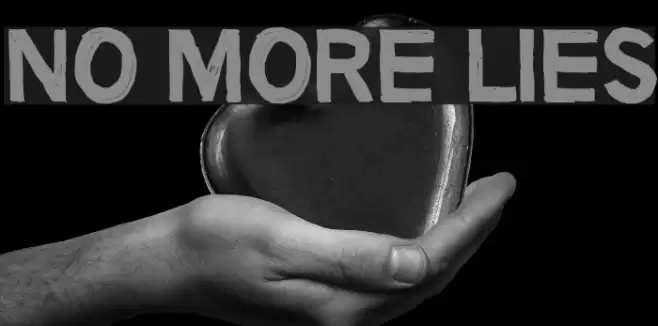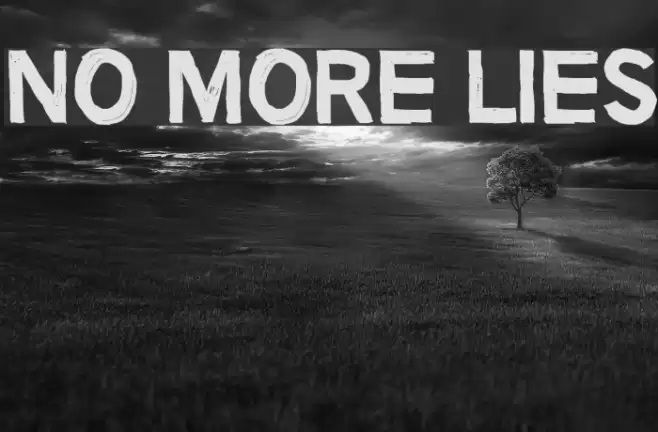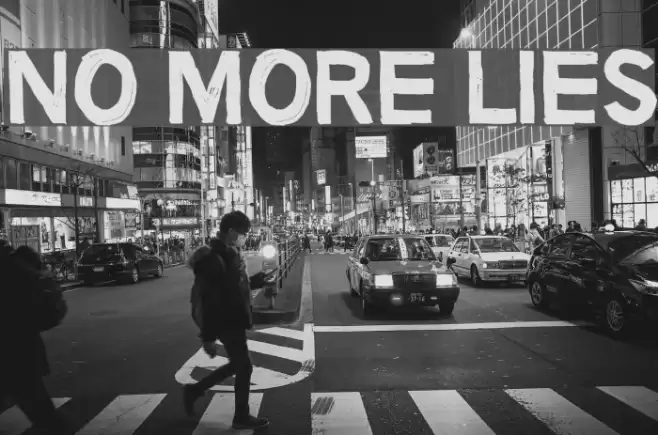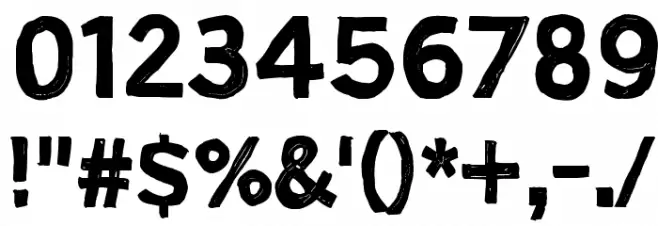
No more lies Font
No more lies Description
This font features a bold and rugged style, with a hand-drawn appearance that gives it a unique and organic feel. The characters are slightly irregular, adding to the font's charm and making it ideal for projects that require a personal touch. The uppercase and lowercase letters maintain a consistent weight, while the numbers and special characters are designed to match the overall aesthetic. The font's rough edges and textured look make it stand out, providing a sense of authenticity and creativity.
A bold, hand-drawn font with a rugged and textured appearance from Distorted Eroded fonts.
- Proposed Projects: Ideal for posters, album covers, branding projects, and any design that requires a bold, artistic touch.